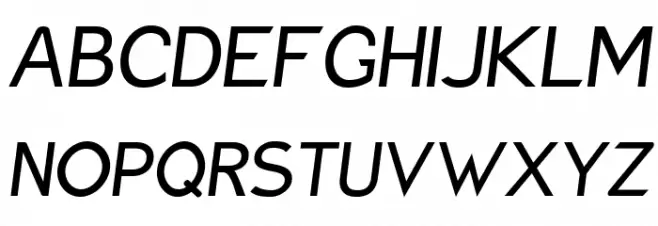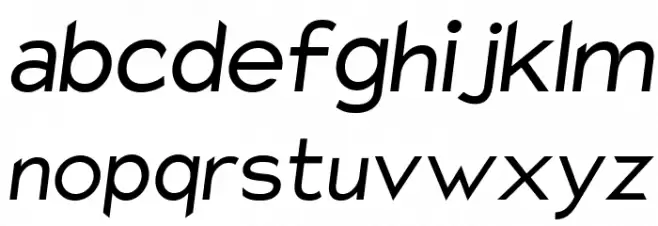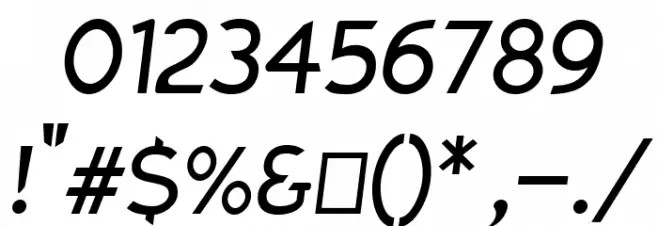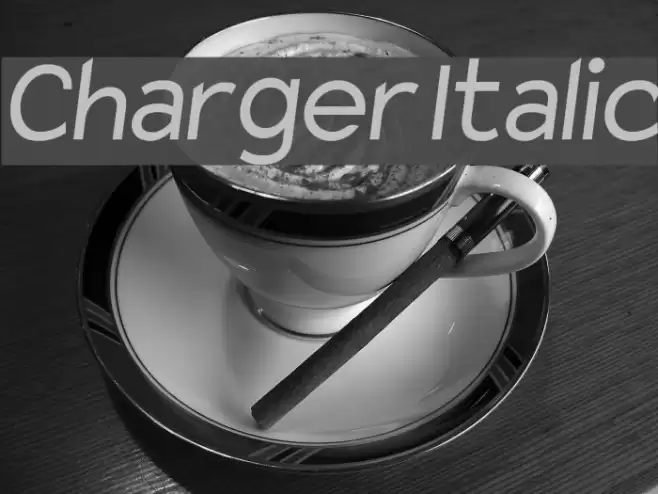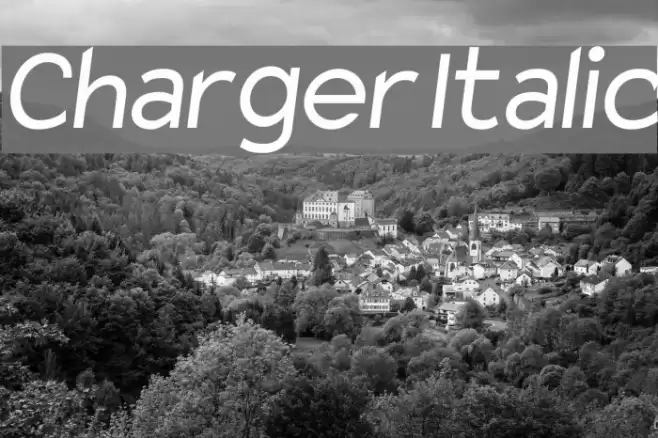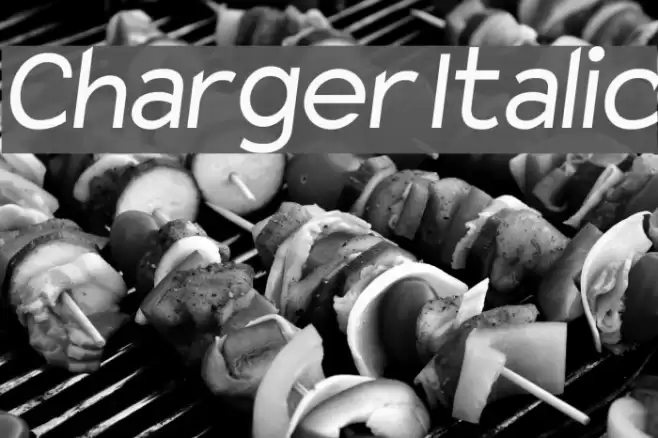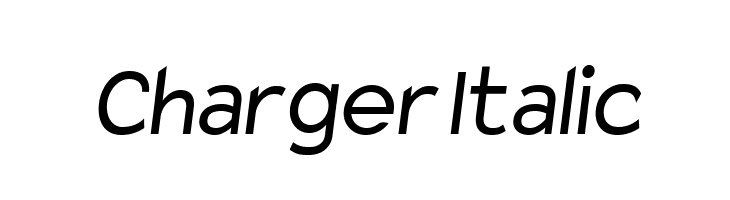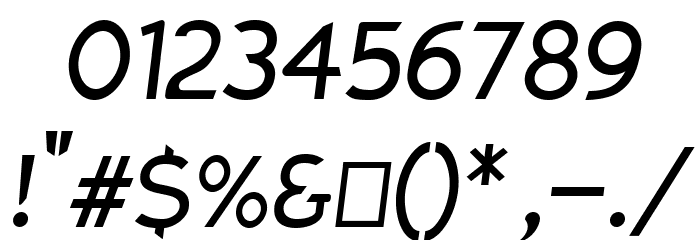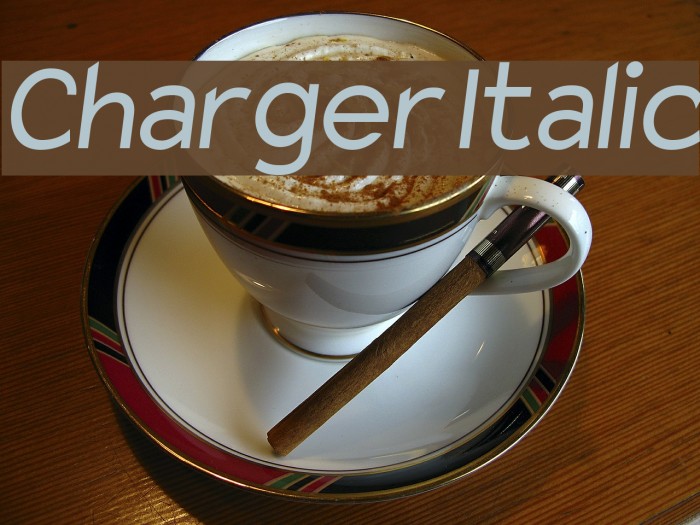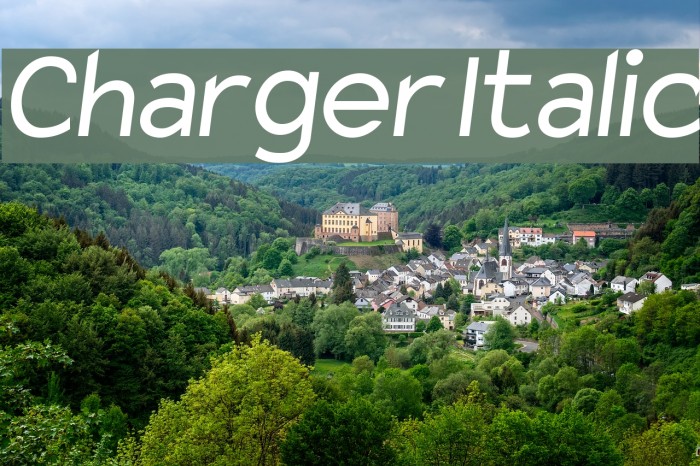
Charger Italic
This font exhibits a sleek, modern design with a distinct italic slant, giving it a dynamic and forward-moving appearance. The characters are clean and streamlined, with smooth curves and a consistent stroke width that maintains readability. The uppercase letters are bold and assertive, while the lowercase letters complement them with a slightly softer touch. The numerals are clear and well-proportioned, making them suitable for various applications. Special characters are included, maintaining the font's cohesive style. Overall, this font combines elegance with a contemporary edge, making it versatile for both digital and print media.
A sleek, modern italic font with smooth curves and consistent stroke width.
- Proposed Projects: Ideal for branding, advertising, digital media, and editorial design projects.
- Use Case: Headlines, Logos, Digital media